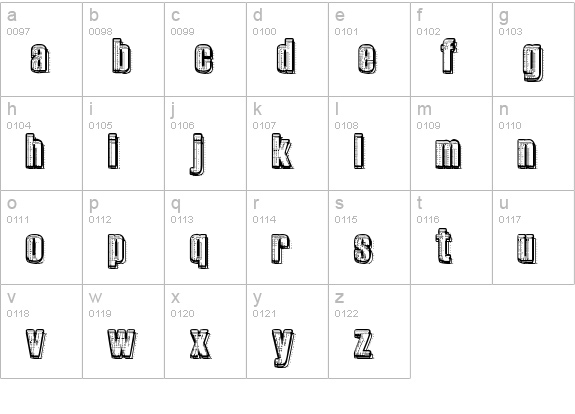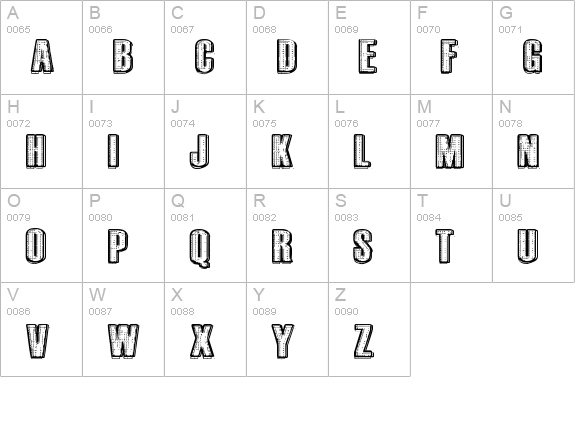
RvD_PRINTPLATE Font Details
RvD_PRINTPLATE is a unique and stylish font that combines modern aesthetics with a touch of vintage charm. Its clean lines and bold strokes make it perfect for a variety of design projects, from branding to packaging to advertising. The industrial-inspired design of RvD_PRINTPLATE gives it a distinct edge, making it stand out among other fonts. What sets RvD_PRINTPLATE apart is that it is available for free download at FontsMarket.com. This means that you can easily access this versatile font and use it in your projects without any cost. Whether you're a professional designer looking for a fresh new font to add to your collection or a hobbyist looking to spice up your personal projects, RvD_PRINTPLATE is a great choice. Download it today and let your creativity soar with this fantastic font!